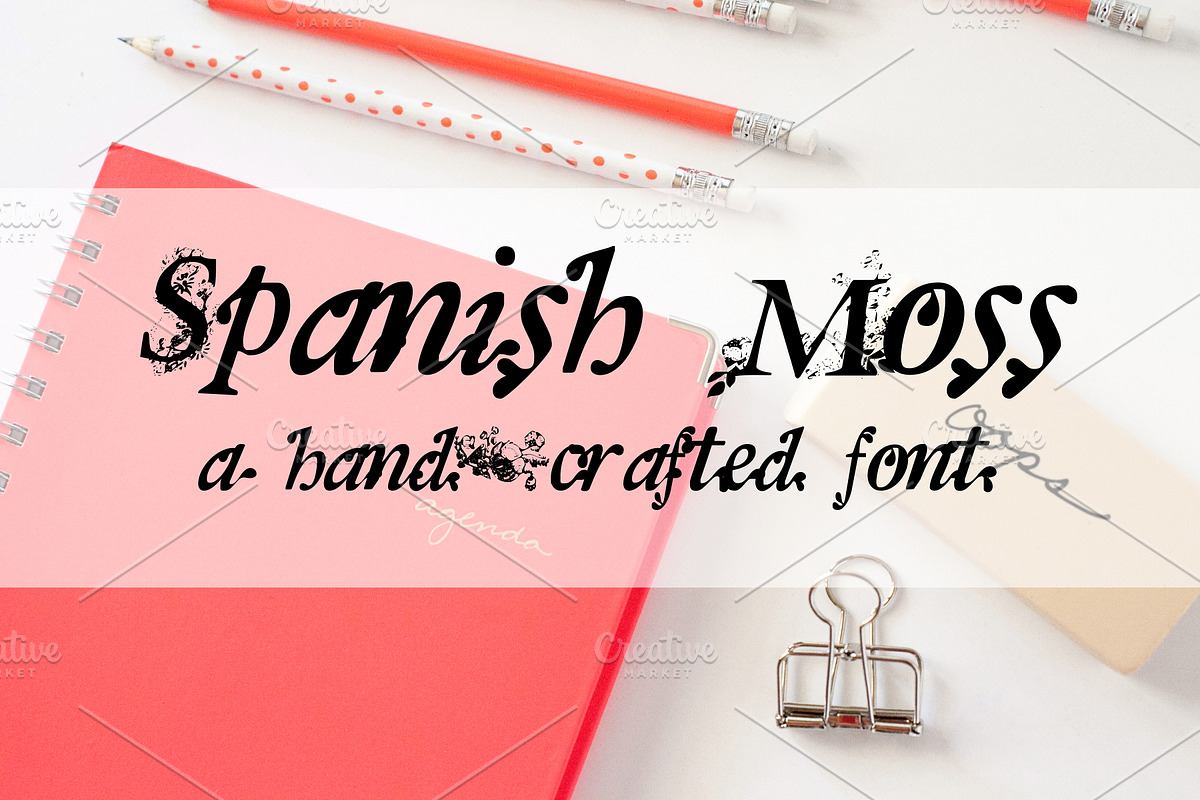
SPANISH MOSS Hand Crafted Font Free Download is a beautifully designed typeface with a rustic, handmade feel. Featuring unique, organic strokes and imperfections that capture the charm of hand-lettered designs, Spanish Moss is perfect for projects that require an earthy, artisanal touch, such as branding, labels, invitations, and home decor products.
SPANISH MOSS Hand Crafted Font Free Download brings a personalized, natural aesthetic to your typography. Whether you're creating a vintage logo, designing a rustic invitation, or crafting product labels, this font adds character and warmth to your designs. Download it today and infuse your next project with the organic charm of Spanish Moss!